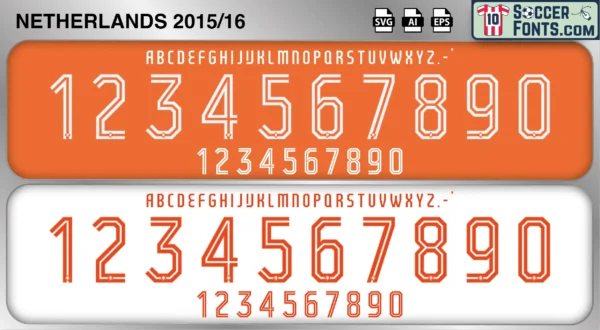
Netherlands 2015-16 Font
The Netherlands 2015-16 font is an editable soccer jersey lettering design in vector format inspired by the Netherlands kit style used during the 2015-16 football seasons. This football font artwork is prepared for football shirt recreations, custom jersey projects, football kit mockups and sports graphic design workflows.
The 2015-16 period represented one of the most surprising chapters in recent Dutch football history. Following the success of the 2014 FIFA World Cup, the Netherlands entered the UEFA EURO 2016 qualification campaign with high expectations. The squad still featured established international stars such as Arjen Robben, Wesley Sneijder, Daley Blind, Georginio Wijnaldum and Robin van Persie, while younger players sought to establish themselves at international level. Despite the talent available, the qualification campaign proved difficult and highlighted the challenges of transitioning between generations following the retirement of several influential players from previous Dutch teams.
The Netherlands 2015-16 font became associated with a significant turning point in the development of the national team. While the failure to qualify for UEFA EURO 2016 was disappointing for supporters, the period also accelerated the introduction of a new generation that would later help restore Dutch football’s competitiveness on the international stage. Netherlands shirts from this era remain notable because they represent the final years of iconic players such as Robben, Sneijder and Van Persie as central figures within the national setup. The Netherlands 2015-16 font reflects a period of transition, reflection and rebuilding as Dutch football prepared for the next phase of its long and influential history.